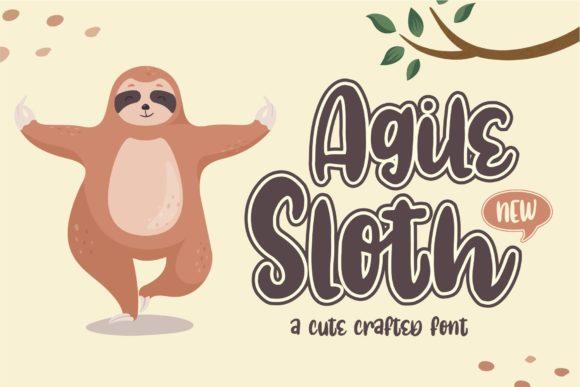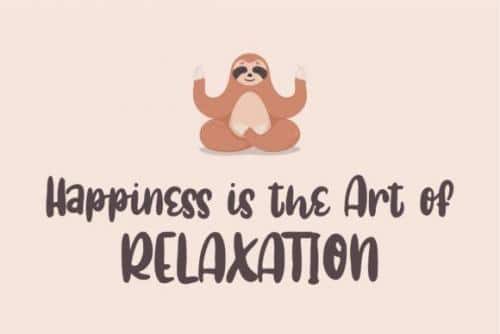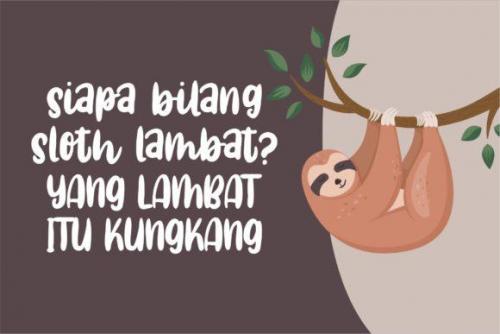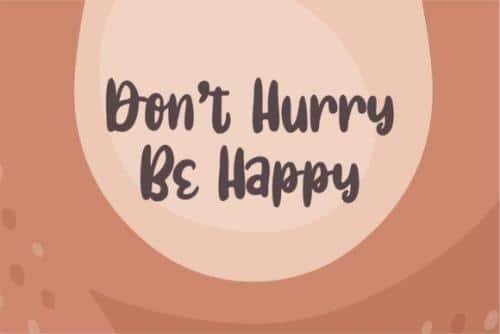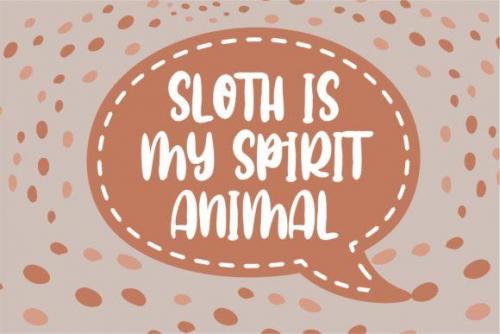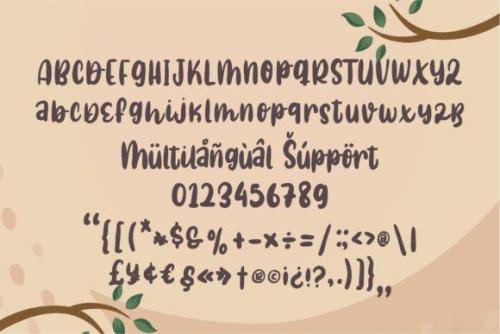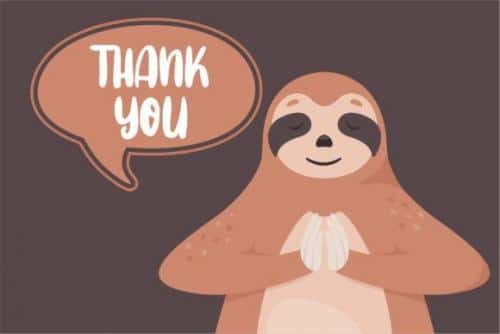
Agile Sloth is a bold and cute display font, carefully handcrafted to become a true favorite. Its casual charm makes it appear wonderfully down-to-earth, readable and, ultimately, incredibly versatile.
- Designer: Azetype